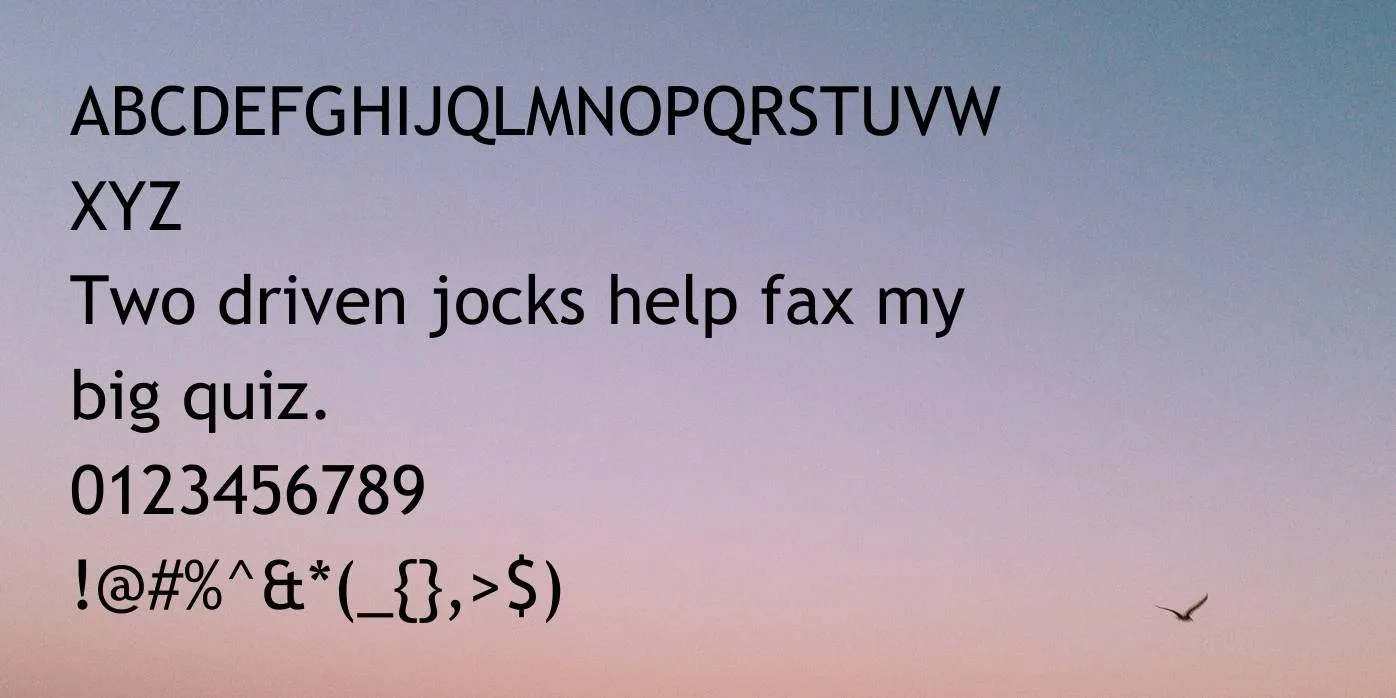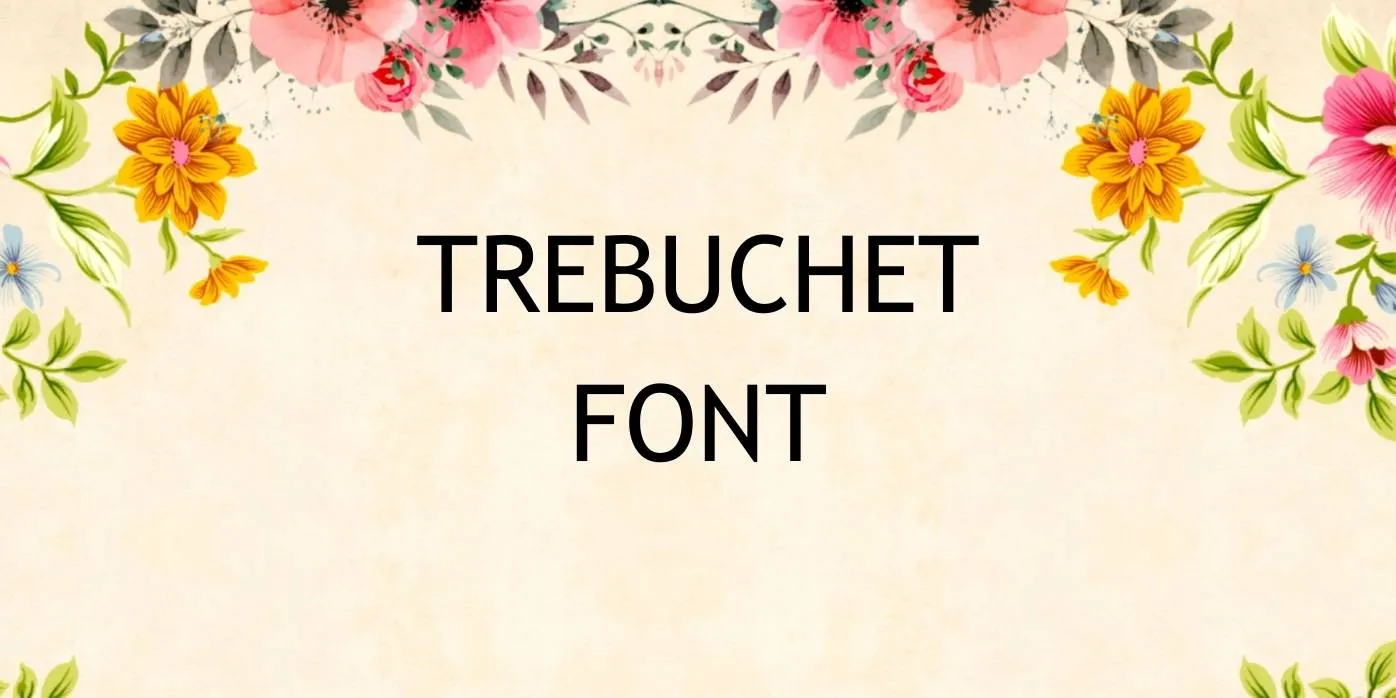
Trebuchet Font
Trebuchet font is the best and common typeface for every kind of design. That belongs to a Sans Serif Typeface family and the designer of this typeface is Vincent Connare. The font has TTF features and is ready to download right here. The font family has Two weights including Regular and MS Italic and all the weight consists of Uppercase letters, Lowercase Letters, Numbers & Numerals, and some manageable symbols also.
This TrueType Featue font has a pretty cool shape with a simple visual that can fit on every design. Every designer knows that sans serif typefaces are very common fonts that are usually used in many designed and you may have seen them in many designs and logos of famous companies. This typeface has regular characters with great X-height and Y width.